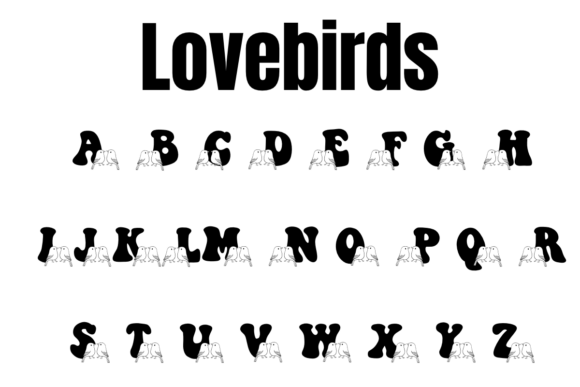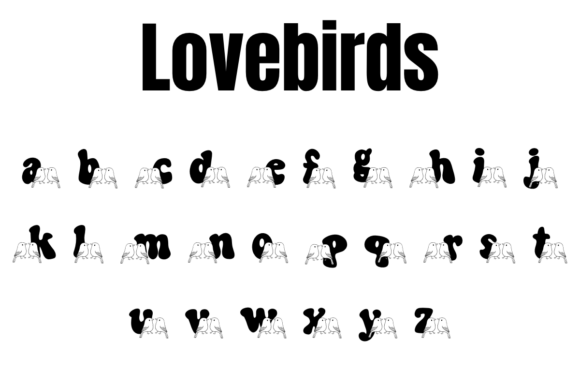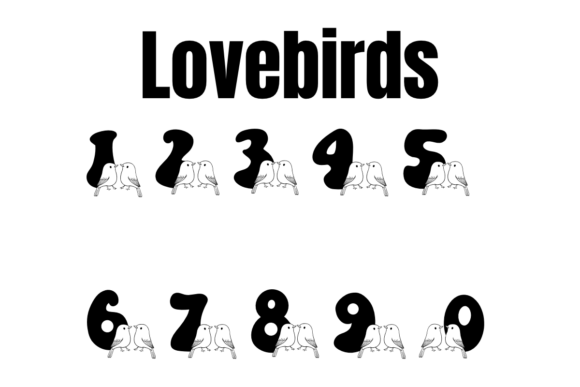
Introduction to Lovebirds Font
Celebrate the sweetness of connection and the beauty of romance with the Lovebirds font.
This delightful Lovebirds typeface is a โ€œDecorative Fontโ€ designed to evoke the soft, pillowy feelings of a budding romance Featuring thick, rounded letterforms that feel like a warm embrace , the Lovebirds font is a go-to choice for Valentineโ€™s Day designs, wedding invitations, and personalized anniversary gifts.
Key Features of Lovebirds Font
Why Choose Lovebirds Font?